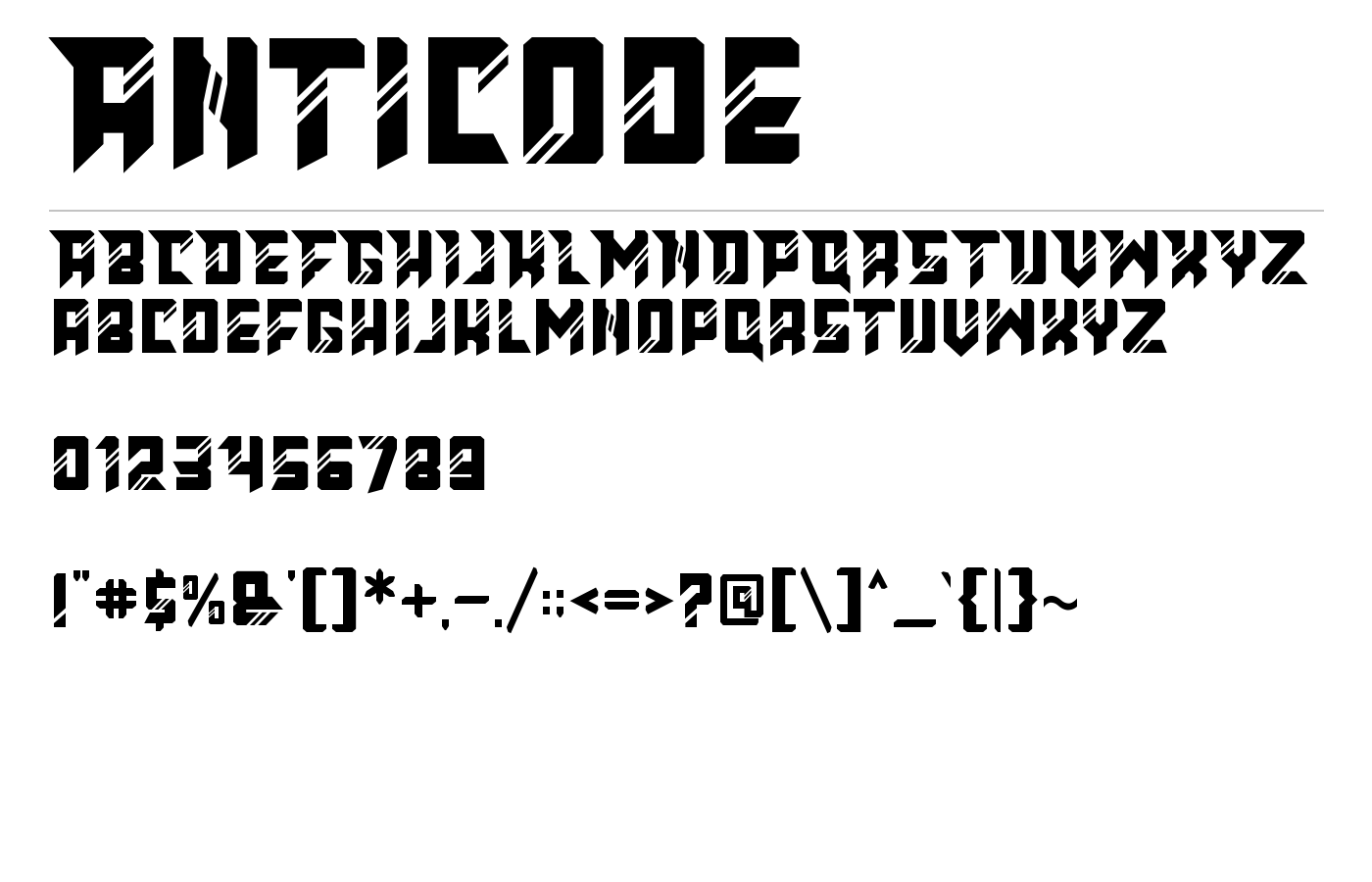
Anticode is a bold, geometric sans serif font with a futuristic, tech-inspired design characterized by sharp angles and unique diagonal cut details. Its uppercase letters and numerals feature a rigid, blocky style with striking cut-through stripes, making it ideal for eye-catching headlines, logos, and branding that demand a strong, modern, and edgy presence. This font works best in creative projects where a distinctive, digital or cyber aesthetic is desired.
Anticode Font
About Anticode Font